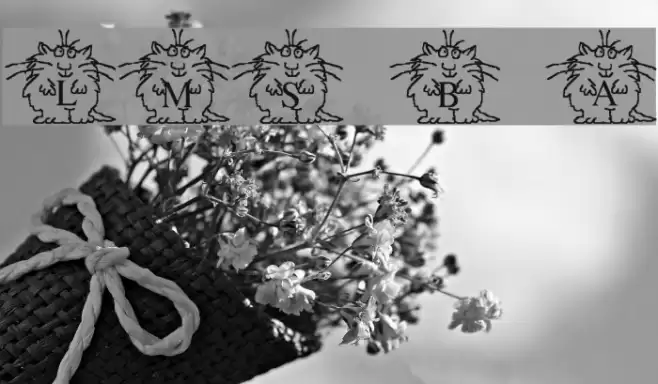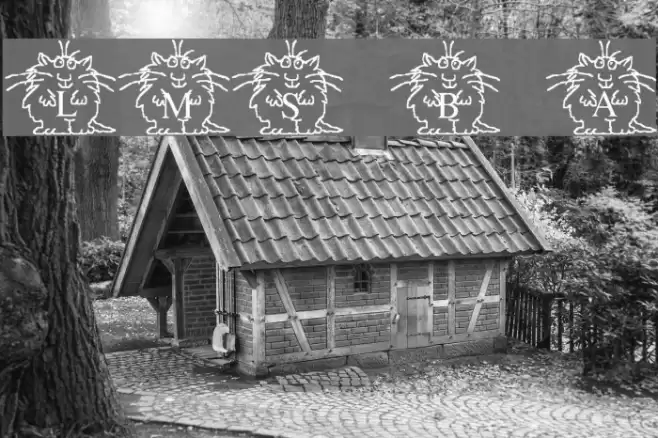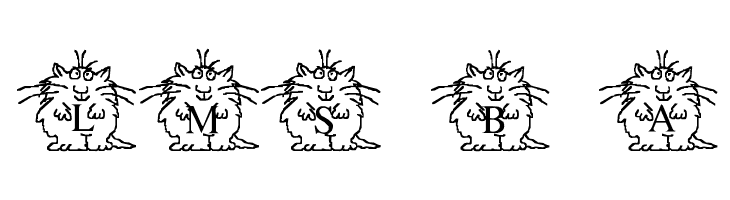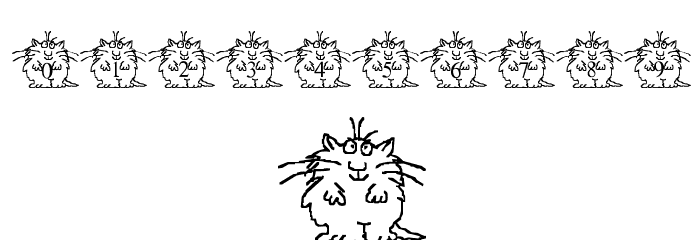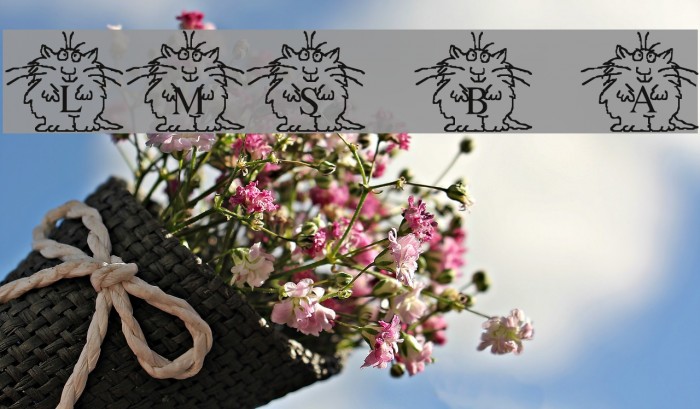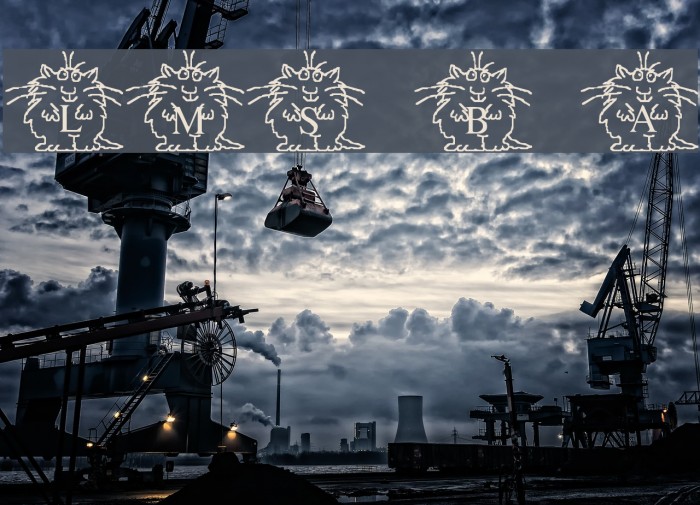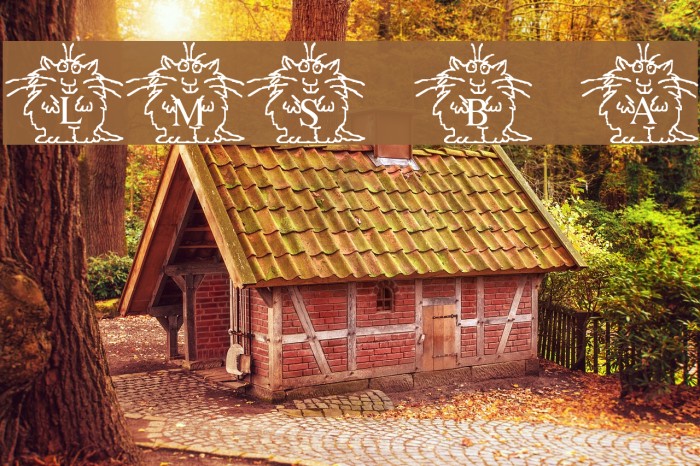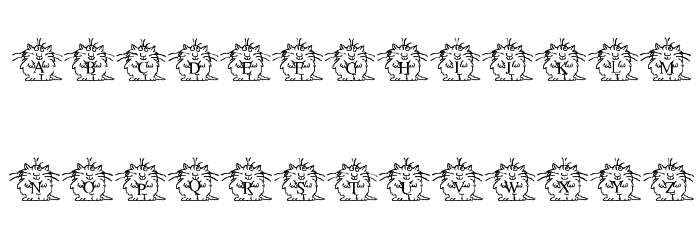
LMS Boyton Alphabet Font
LMS Boyton Alphabet Description
This whimsical and playful font features each letter encased within a cartoonish, fluffy cat character. The design is highly decorative, with each character having a unique, hand-drawn appearance that adds a sense of fun and creativity. The letters are bold and easily distinguishable, making them suitable for informal and lighthearted projects. The overall style is quirky and imaginative, appealing to audiences who appreciate humor and creativity in design.
A playful font with letters inside cartoonish cat characters, perfect for creative projects from Uncategorized fonts.
- Proposed Projects: Ideal for children's books, playful greeting cards, whimsical posters, and creative branding projects.